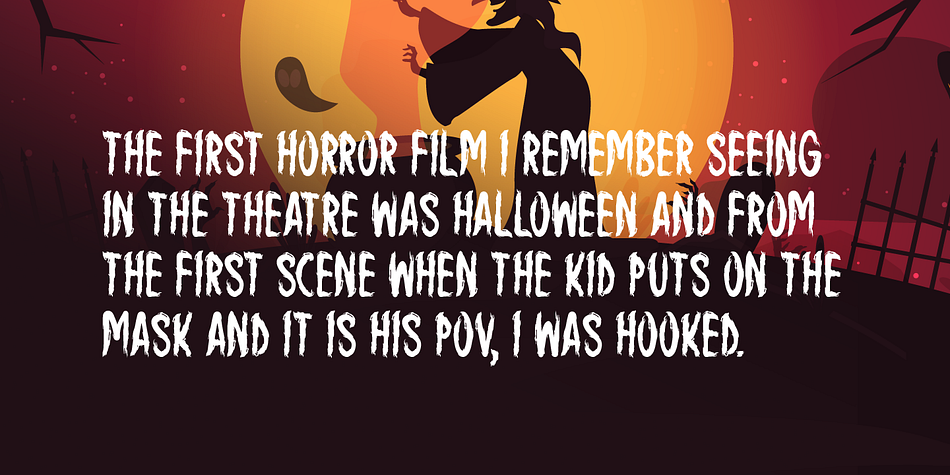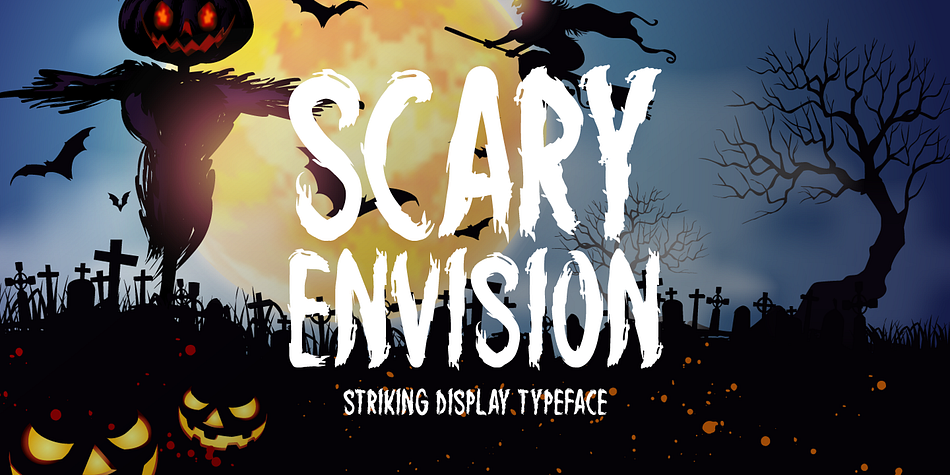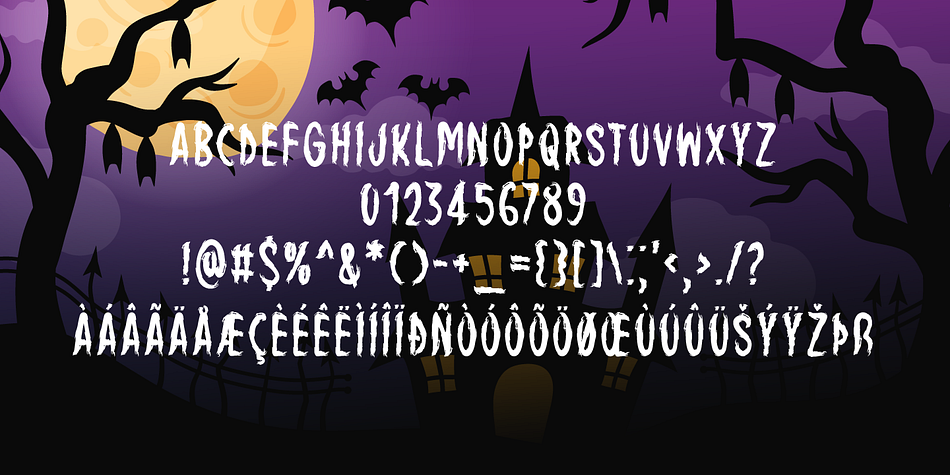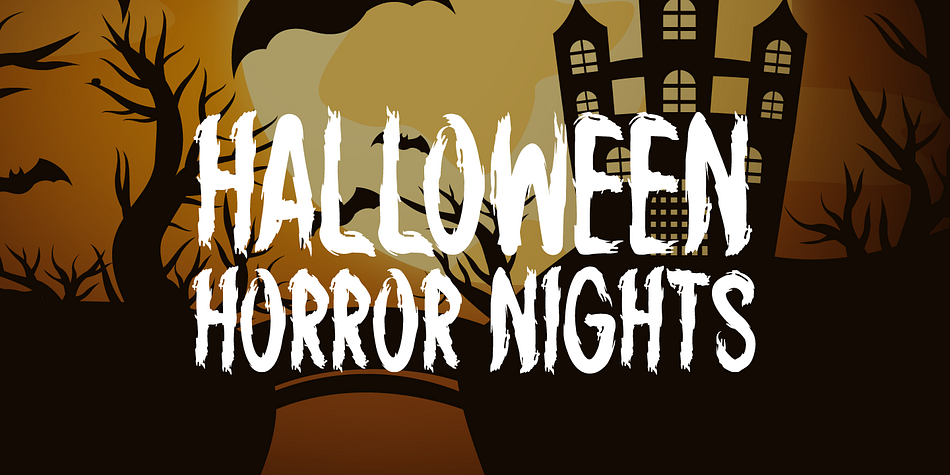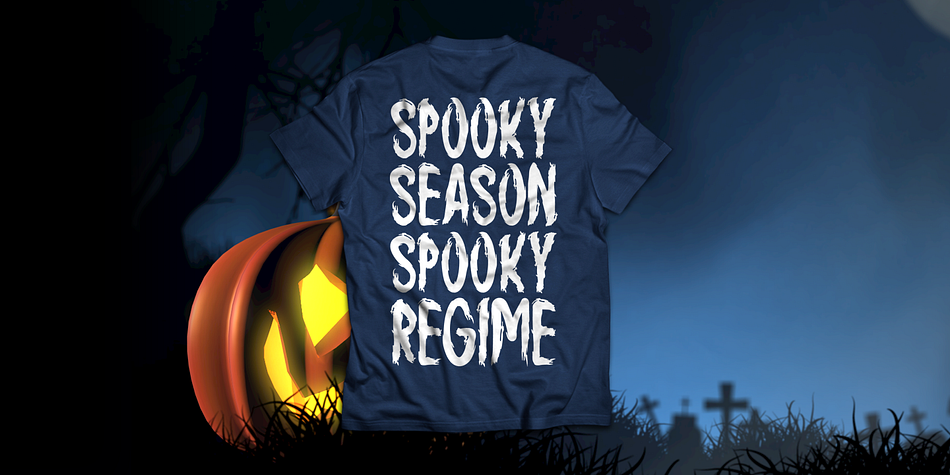
SCARY ENVISION
Designed by Md. Shohail Bhuiyan, Scary Envision is a brush display, display and grunge font family published by Seemly Fonts.
Scary Envision is a casual and creepy-looking display font. It is perfectly suitable for any Halloween-related project or crafty idea! The only limit is your imagination.